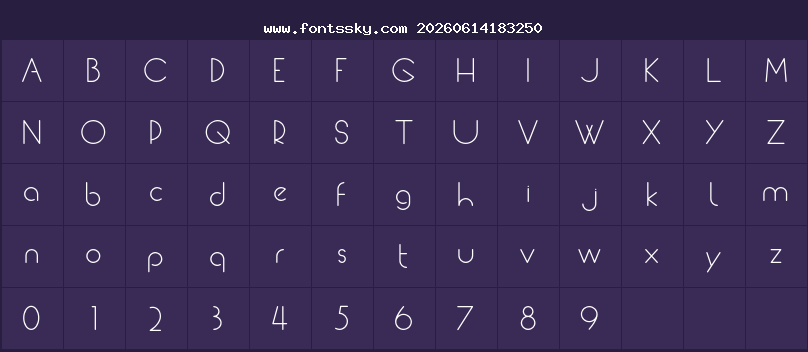
thinoo Preview
• Font Name: thinoo
• Font Style: Thin
• Full Font Name: thinoo thin
• Character Count: 95
About thinoo.otf
thinoo.otf is a modern, elegant sans-serif font designed for ultimate readability and visual harmony. Perfect for branding, headlines, web design, and print materials.